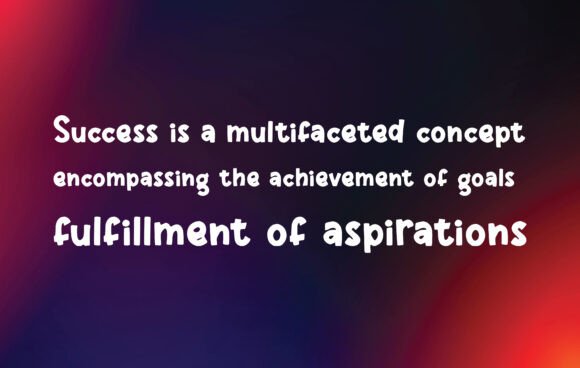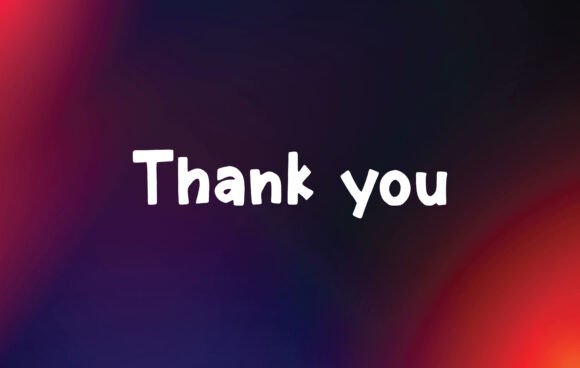
Avery Font: The Ultimate Go-to Favorite for Designers and Crafters
In the world of typography, a font can make or break a design. With thousands of options to choose from, finding the perfect one can be overwhelming. However, if you’re looking for a versatile, eye-catching, and easy-to-read font, look no further than Avery Font. This font is designed to be a go-to favorite for designers and crafters alike, making it an essential addition to your typography toolkit.
What Makes Avery Font Stand Out?
Avery Font is crafted to bring your creative ideas to life. Its clarity and readability make it an excellent choice for both titles and body text. Whether you’re working on a magazine cover, t-shirt design, social media post, branding project, wedding invitation, or greeting card, this font fits right in with style and personality. Its versatility is unmatched, allowing you to experiment with various design projects without worrying about the font’s adaptability.
Key Features of Avery Font
- Versatility: Avery Font is designed to work seamlessly across various design projects, from print to digital media.
- Readability: Its clear and easy-to-read design makes it perfect for both titles and body text.
- Eye-catching: With its unique style and personality, Avery Font is sure to grab attention and leave a lasting impression.
- Style and Personality: This font adds a touch of sophistication and elegance to any design project, making it ideal for designers and crafters who want to create visually appealing work.
Use Cases for Avery Font
Avery Font is an excellent choice for a wide range of design projects, including:
- Magazine Covers: Create eye-catching headlines and titles that grab readers’ attention.
- T-Shirt Designs: Add a touch of personality to your apparel designs with Avery Font’s unique style.
- Social Media Posts: Stand out on social media with Avery Font’s readability and style.
- Branding: Establish a strong brand identity with Avery Font’s versatility and sophistication.
- Wedding Invitations: Add a touch of elegance and sophistication to your wedding invitations and stationery.
- Greeting Cards: Create beautiful and heartfelt greeting cards with Avery Font’s clear and easy-to-read design.
Why Designers and Crafters Love Avery Font
Avery Font has quickly become a favorite among designers and crafters due to its exceptional versatility and style. Here are a few reasons why:
- Easy to Read: Avery Font’s clear design makes it easy to read, even at small sizes.
- Highly Versatile: This font works seamlessly across various design projects and mediums.
- Unique Style: Avery Font’s unique personality adds a touch of sophistication and elegance to any design project.
- Time-Saving: With Avery Font, you can save time searching for the perfect font, and focus on creating stunning designs.
In conclusion, Avery Font is an exceptional addition to any designer’s or crafter’s typography toolkit. Its versatility, readability, and unique style make it an excellent choice for a wide range of design projects. Whether you’re working on a magazine cover, t-shirt design, social media post, branding project, wedding invitation, or greeting card, Avery Font is sure to bring your creative ideas to life. With its ease of use and exceptional style, Avery Font is poised to become your go-to favorite font.